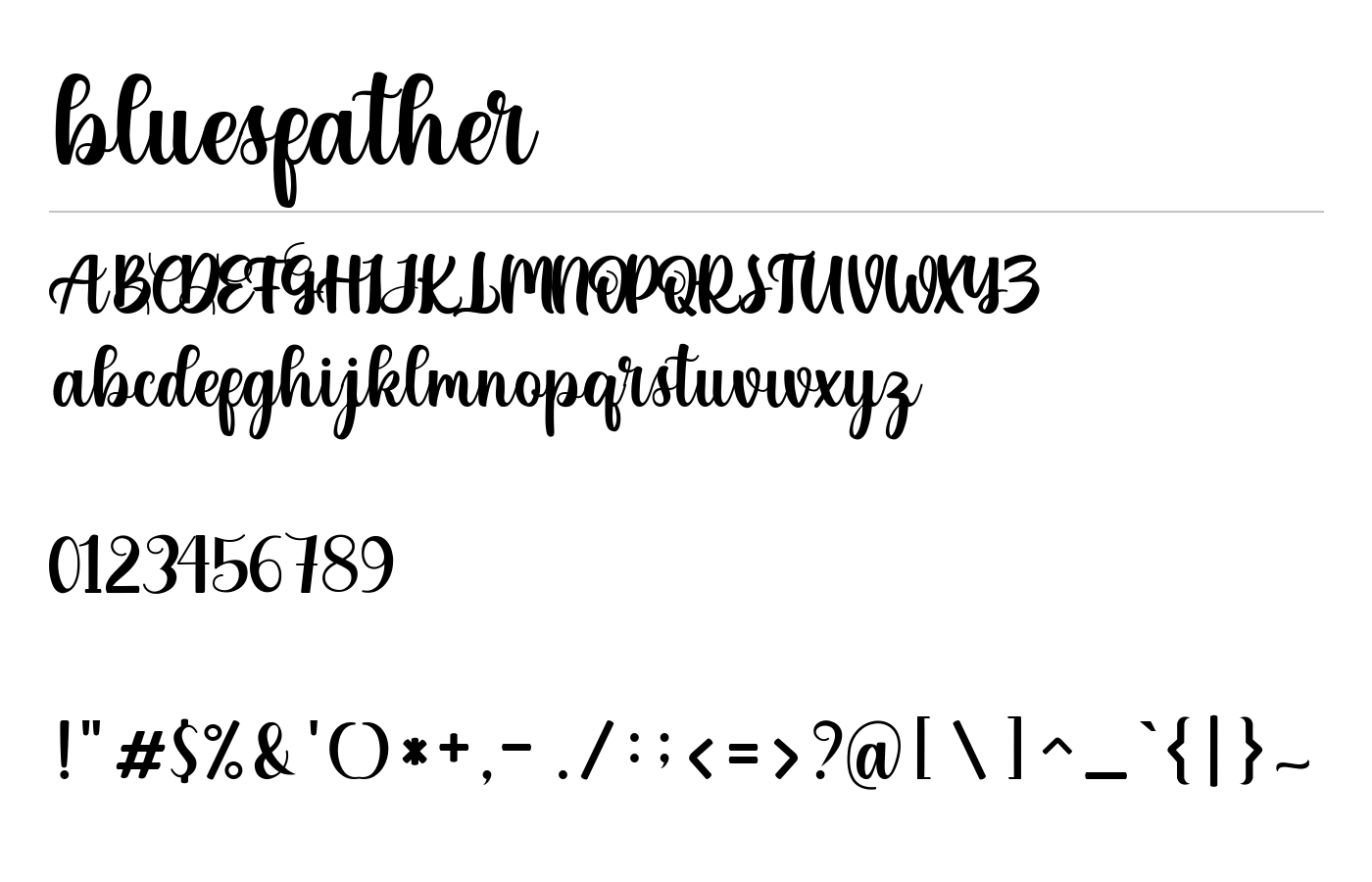
Bluesfather is a bold, handwritten script font that combines playful curves with a smooth, flowing style, making it feel warm and inviting. It features a lively mix of high x-height and rounded letterforms with a casual yet polished look, perfect for adding personality to branding, invitations, and creative projects. This font works well for eye-catching headlines and display purposes where a friendly, approachable vibe is desired.
bluesfather Font
About bluesfather Font